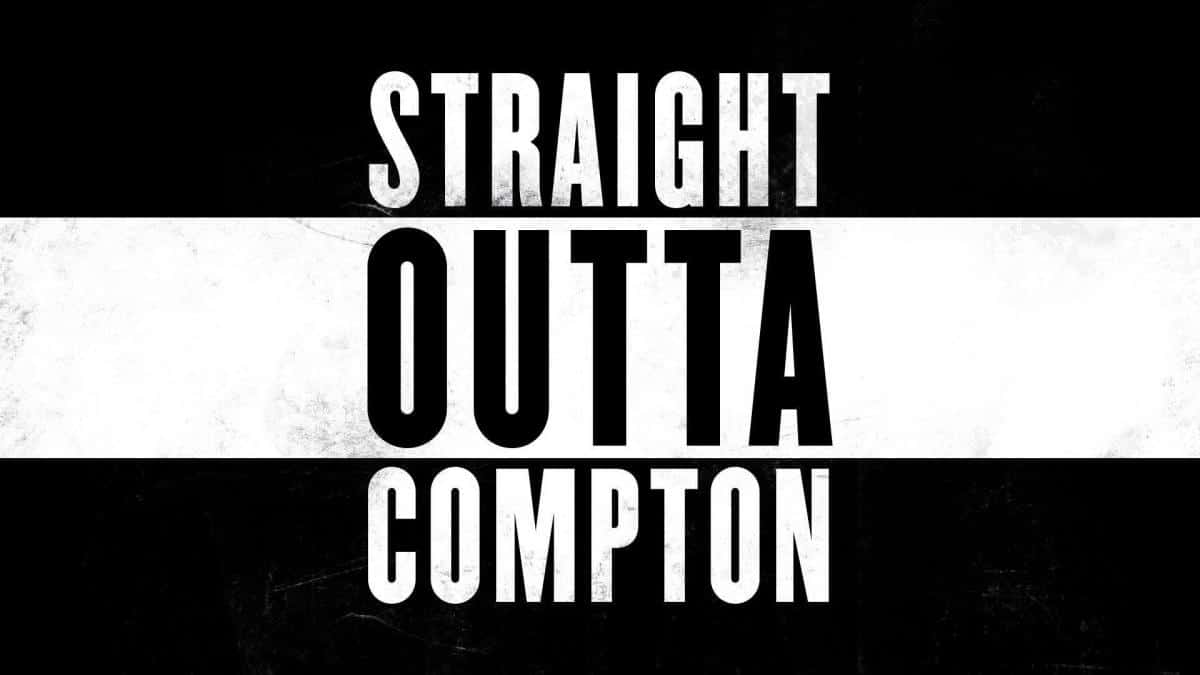
Knockout Font – Straight Outta Compton Font
Knockout Font Straight Outta Compton Font
The Knockout Font is the font used in the movie Straight Outta Compton. This font is designed by Hoefler & Co. You can use this font for personal purpose.